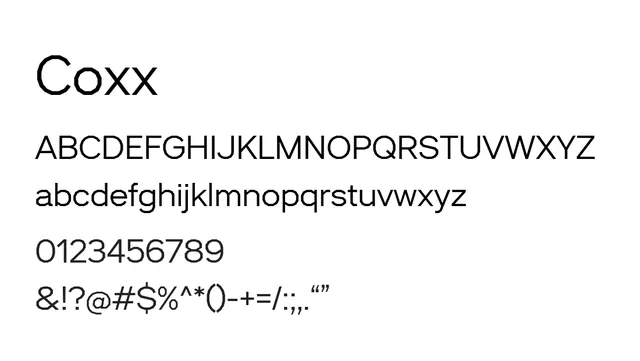
Coxx
A modern geometric sans-serif with clean lines and balanced proportions, versatile across UI and editorial applications.
Works effectively as both body text and headlines in contemporary design. The geometric clarity makes it suitable for digital interfaces, branding systems, and modern editorial layouts.
Complements serif fonts like Garamond for editorial variety, or pairs with Courier for technical documentation.